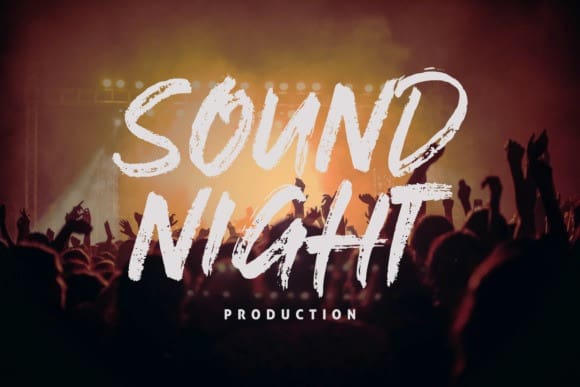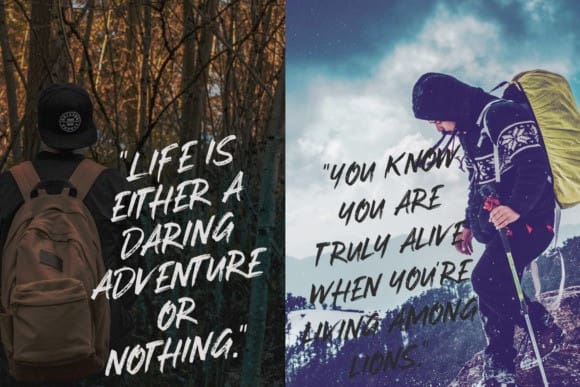
Stay Weird Font
Stay Weird is an inky, streaky font that will look great on any type of design! This font was crafted through a long process, and has a distinctive style; this download includes stylish swashes so you can make standout work.